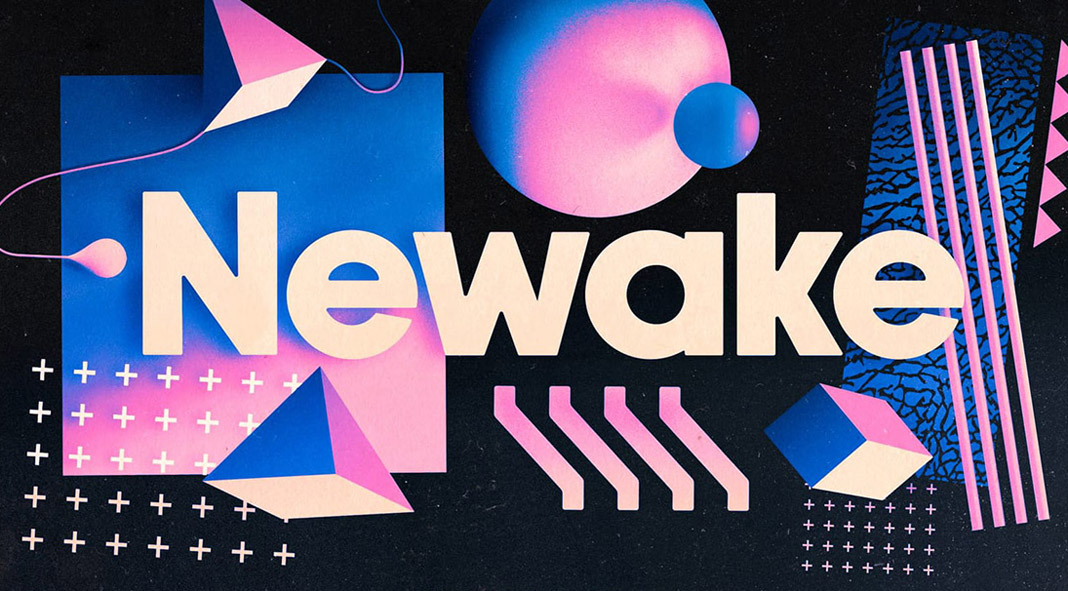
Newake, a free font from Indieground Design for titles, logos, editorial design, packaging, and web design.
Created by Roberto Perrino and Francesco Terragin of studio Indieground Design, Newake is a sans-serif font made for titles, logos, editorial design, packaging, and web design. Its bold style matches perfectly with modern graphic design projects. Newake’s slightly rounded corners will add a more friendly look to your text or quotes.